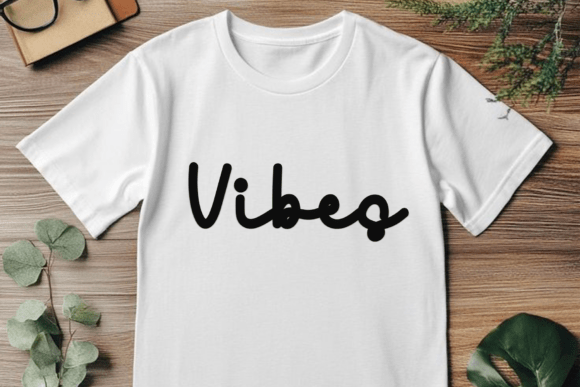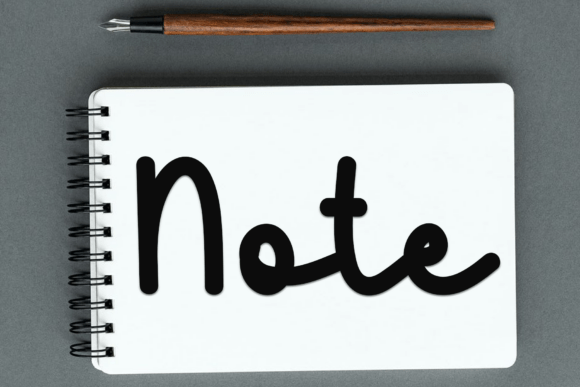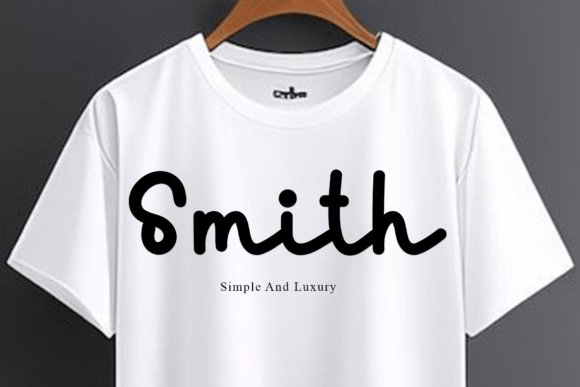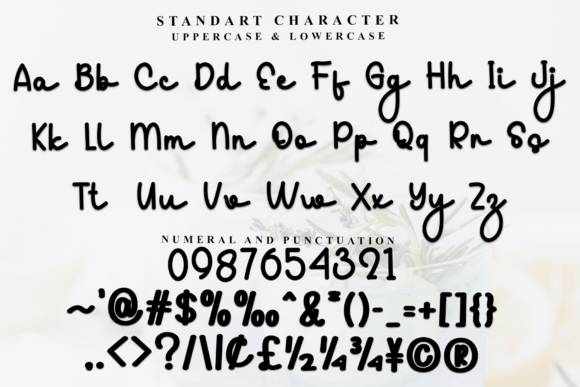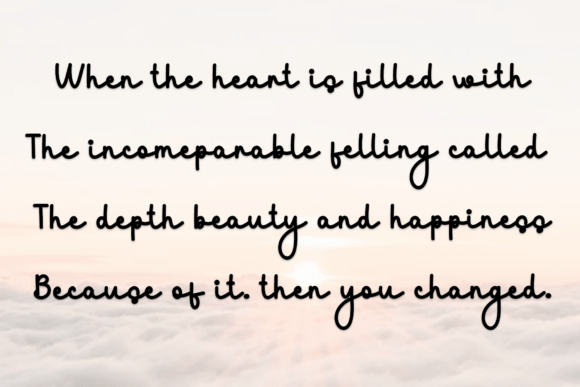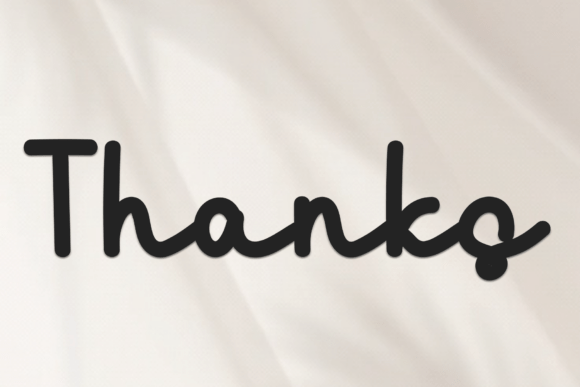
Coffee Font: Elevate Your Designs with a Unique and Eye-Catching Typeface
Are you a designer, crafter, or creative looking for a font that can add a touch of warmth and personality to your projects? Look no further than the Coffee Font, a beautiful and versatile typeface that is sure to make your designs stand out. With its soft, unique touch and distinctive strokes, this font is perfect for a wide range of creative applications, from crafts and design projects to artistic and commercial endeavors.
The Characteristics of Coffee Font
Coffee Font is a natural font style that boasts a range of characteristics that make it both meaningful and versatile. Its soft and unique touch gives it a special character that is sure to capture the attention of your audience. The font’s distinctive strokes add a touch of elegance and sophistication, making it perfect for designs that require a level of refinement and poise.
One of the standout features of Coffee Font is its range of characters. With a variety of letters, numbers, and symbols to choose from, you can create unique and eye-catching designs that showcase your creativity and style. Whether you’re working on a logo, a poster, or a craft project, this font has everything you need to bring your vision to life.
In addition to its technical compatibility, Coffee Font is also highly versatile in terms of its creative applications. You can use it to create a wide range of designs, from elegant and sophisticated to playful and whimsical. Whether you’re working on a commercial project or a personal craft, this font is sure to add a touch of personality and style to your work.
Coffee Font is a perfect choice for designers and crafters who are looking for a unique and eye-catching typeface to add to their projects. Its soft and natural style makes it ideal for designs that require a touch of warmth and personality, such as:
- Craft projects, such as handmade cards and gift tags
- Artistic and creative endeavors, such as illustrations and paintings
- Commercial designs, such as packaging and advertising materials
Why Choose Coffee Font?
So why choose Coffee Font for your design projects and crafts? Here are just a few reasons:
- Unique and eye-catching style: Coffee Font has a distinctive and stylish look that is sure to make your designs stand out.
- Perfect for creative projects: Coffee Font is ideal for designers, crafters, and creatives who are looking for a font that can add a touch of personality and style to their work.
- High-quality and natural style: This font has a soft and natural style that is perfect for designs that require a touch of warmth and elegance.
In conclusion, Coffee Font is a beautiful and versatile typeface that is perfect for designers, crafters, and creatives who are looking for a unique and eye-catching font to add to their projects. With its soft and natural style, distinctive strokes, and range of characters, this font is sure to make your designs stand out. Whether you’re working on a commercial project or a personal craft, Coffee Font is an ideal choice for anyone looking to add a touch of personality and style to their work.